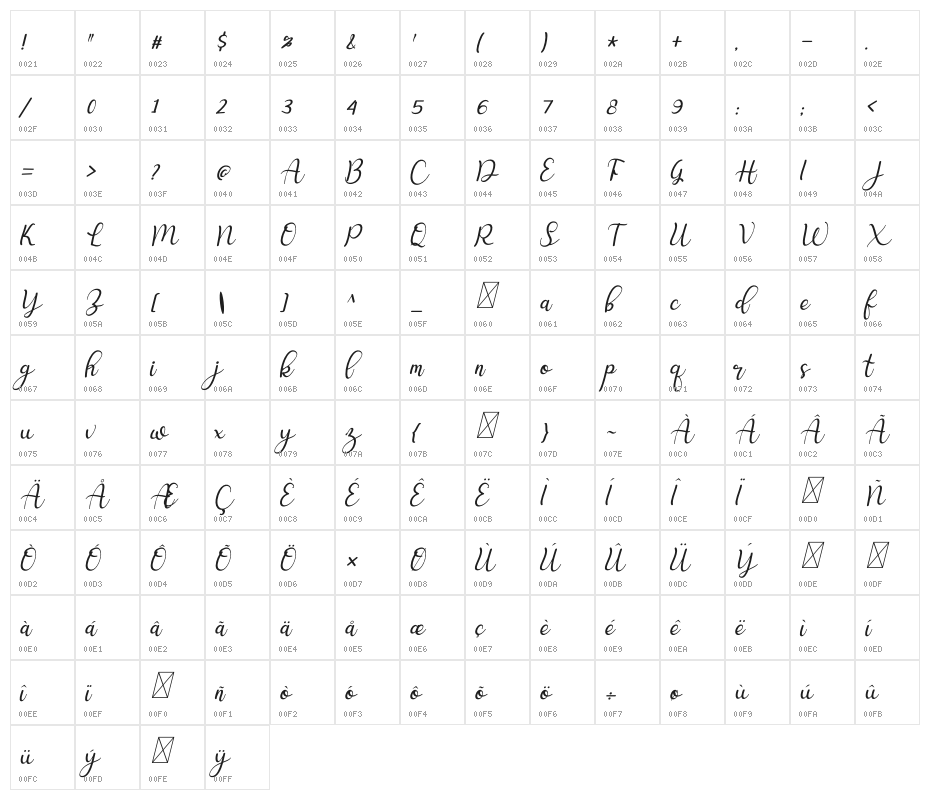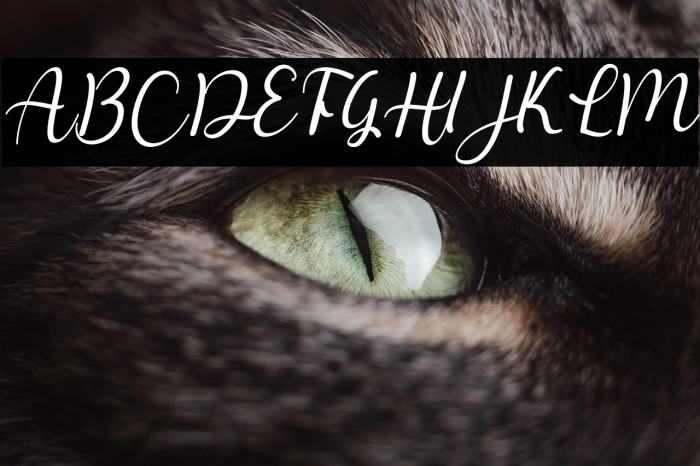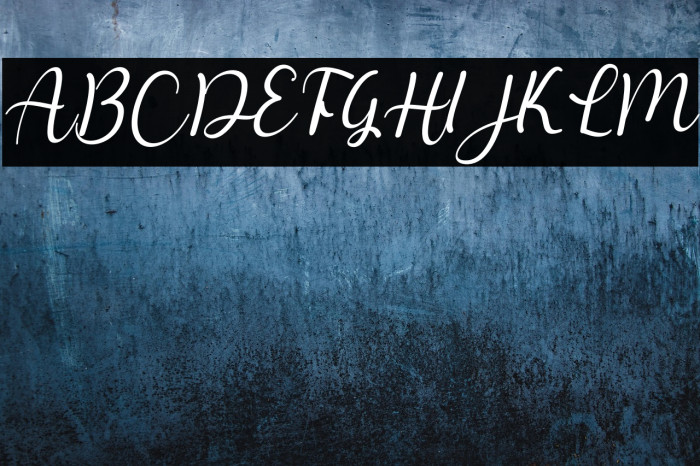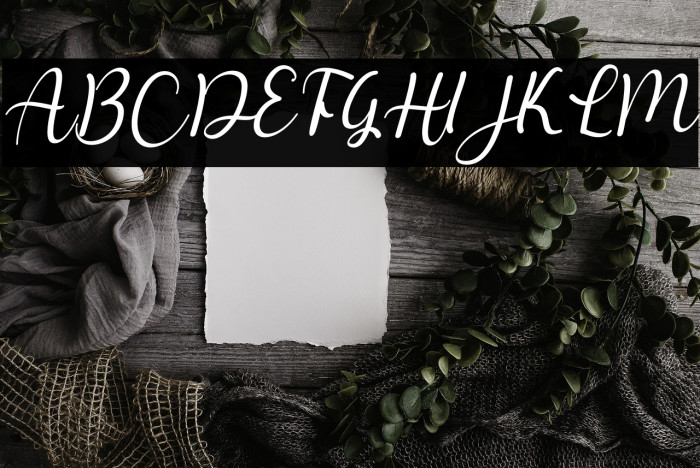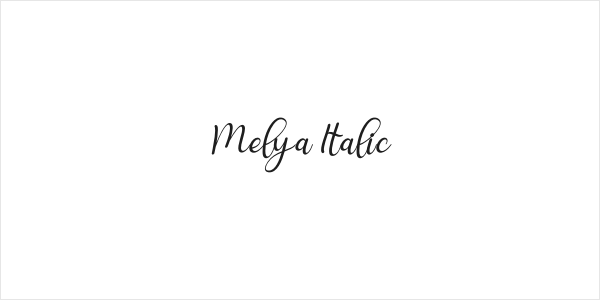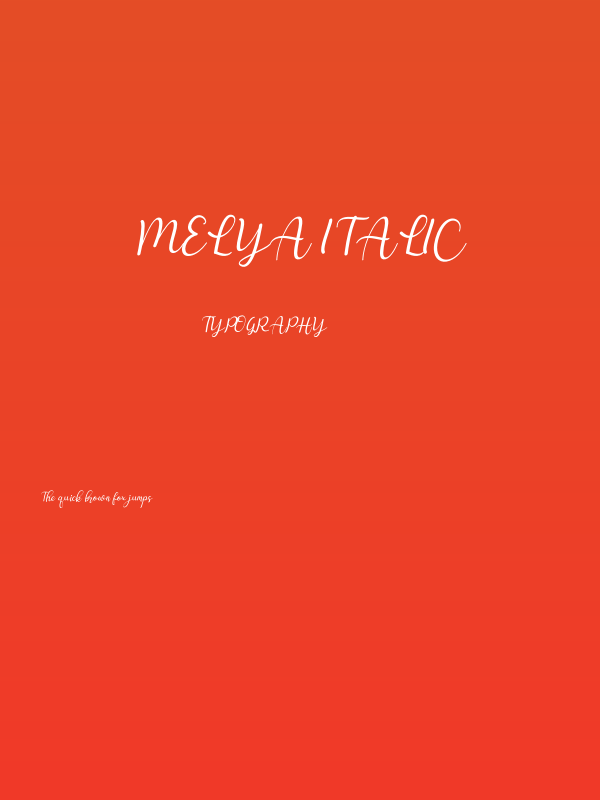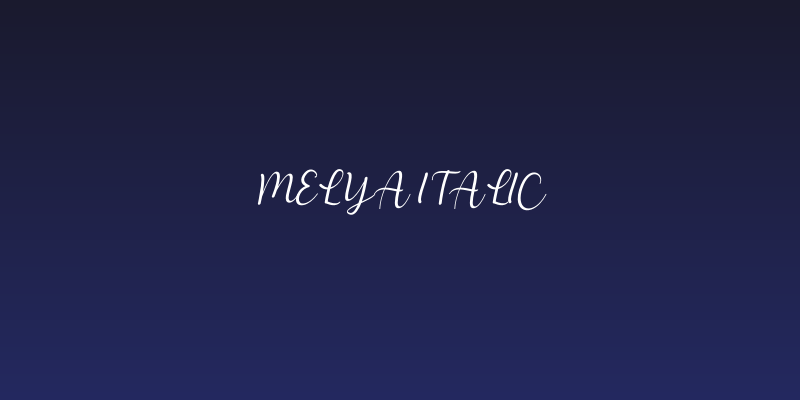
Melya Italic Font
Melya Italic Description
This font features an elegant and flowing script style, characterized by its smooth, cursive strokes and a slight slant to the right, giving it an italic appearance. The uppercase letters are distinct with graceful loops and curves, while the lowercase letters maintain a consistent flow, enhancing readability. The numerals are well-integrated, matching the overall script style, and the special characters are designed to complement the alphabet with similar fluidity. This font exudes a sense of sophistication and artistry, making it suitable for projects that require a touch of elegance.
| Overall Style | Elegant, Artistic |
| Proposed Projects | Ideal for wedding invitations, greeting cards, elegant branding, and artistic projects. |